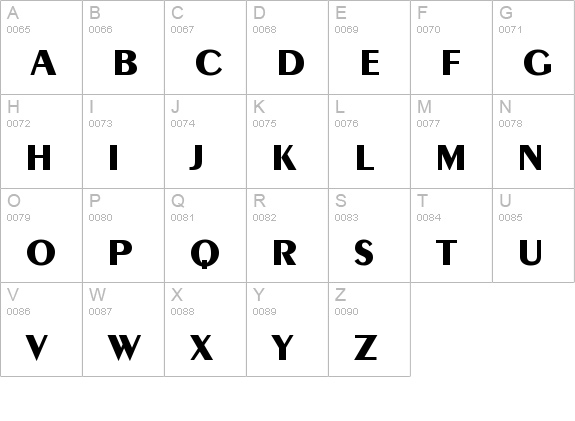
Penguin Bold Font Details
Penguin Bold is a strong, high-contrast variant in the Penguin typeface family \xE2\x80\x94 well suited to headlines, attention-grabbing titles, and strong calls-to-action.
Introducing Penguin Bold, a captivating and versatile font that exudes confidence and sophistication. With its bold and distinct letterforms, Penguin Bold commands attention and makes a powerful statement in any design project. From eye-catching headlines to striking logos, this font adds a touch of elegance and modernity to any creative endeavor. But what makes Penguin Bold truly exceptional is that it is not only visually stunning but also freely available to download at FontsMarket.com. Yes, you read that right – this remarkable font can be yours without spending a dime! Whether you're a professional designer or a casual enthusiast, Penguin Bold offers endless possibilities, and now you can explore its potential without any cost. The seamless and smooth curves of Penguin Bold, combined with its solid and confident strokes, create a harmonious balance that captures the essence of contemporary design. Its versatility allows it to excel in a variety of contexts – from print materials to digital platforms, from branding to web design – Penguin Bold adapts effortlessly, ensuring a flawless and stylish outcome in every project. Designed with meticulous attention to detail, Penguin Bold is a testament to the dedication and expertise of its creators. Each letter has been carefully crafted to ensure legibility and readability, even at smaller sizes. This font is a testament to the belief that design should be accessible to all, and its availability for free download is a testament to that philosophy. So, what are you waiting for? Unleash your creativity and elevate your designs with the captivating Penguin Bold font. Download it today at FontsMarket.com, and experience the power of this unique and striking typeface. With Penguin Bold, the possibilities are limitless, and now, it's all at your fingertips, free of charge.